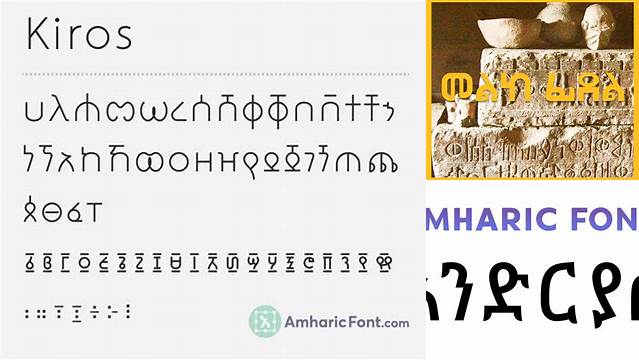
Hey guys! Ever wanted to jazz up your Amharic documents, websites, or designs with a cool new font? Well, you're in the right place. Today, we're diving deep into the world of Kiros Amharic font and how you can get your hands on it for free. We'll cover everything you need to know, from where to download it to how to install and use it like a pro. So, buckle up, and let's get this font party started!
Understanding Amharic Typography and Font Choices
Amharic, the beautiful and ancient language of Ethiopia, has a rich history of written expression. Typography plays a crucial role in how this language is perceived and used in modern media. When we talk about Amharic typography, we're essentially discussing the art and technique of arranging type to make the written language legible, readable, and appealing when displayed. This involves selecting the right Amharic fonts that not only capture the essence of the script but also cater to the specific needs of the project, whether itâs for print, web, or digital design. The choice of font can significantly impact the overall aesthetic and user experience. For instance, a formal document might require a classic, serif-style font, while a creative project might benefit from a more modern or stylized typeface. The availability of free Amharic fonts like Kiros is a game-changer for many users, especially students, small businesses, and individuals who may not have the budget for premium typefaces. These free resources democratize access to quality typography, enabling a wider range of people to create visually appealing content in Amharic. Itâs not just about looking good; itâs about ensuring clarity and accessibility. A poorly chosen font can hinder readability, especially for longer texts, and can even misrepresent the tone or message youâre trying to convey. Therefore, understanding the nuances of Amharic script and how different fonts interpret it is key. Weâll explore various aspects of Amharic typography, including the historical evolution of the script, the technical considerations for font design, and the impact of digital media on typeface trends. This foundational knowledge will help you appreciate why a font like Kiros can be such a valuable asset in your digital toolkit.
Why Choose Kiros Amharic Font?
So, what makes the Kiros Amharic font stand out from the crowd? Well, guys, itâs all about its unique blend of modern aesthetics and classic Amharic script representation. This font is designed to be incredibly versatile, making it suitable for a wide range of applications. Whether youâre designing a professional business card, a captivating website banner, a school project, or even just typing out a personal email, Kiros has got your back. Its clean lines and well-balanced characters ensure excellent readability, even at smaller sizes, which is super important for web design and print materials. Plus, it often comes with a good set of glyphs, meaning it supports a comprehensive range of Amharic characters and symbols, ensuring you can express yourself fully. The Kiros font often boasts a contemporary feel without sacrificing the traditional charm of the Amharic language. This balance is hard to achieve, and when a font nails it, it becomes an instant favorite. Think about how a beautifully designed Amharic word can draw someone in â thatâs the power of a great font! Many users appreciate Kiros for its smooth curves and consistent stroke weight, contributing to a visually pleasing experience. Itâs also often optimized for digital screens, meaning it will look crisp and clear on your computer, tablet, or smartphone. The availability of this Amharic font for free download makes it even more attractive. You get premium-quality design elements without the hefty price tag, allowing you to invest your resources elsewhere. Weâll delve into the specific design characteristics that make Kiros a top choice for many, exploring its legibility, stylistic features, and overall impact on Amharic content creation. This font isn't just a tool; it's a way to elevate your communication and express the richness of the Amharic language with style and clarity.
Utilizing Kiros Font in Design Software
Now that youâve successfully installed the Kiros Amharic font, the real fun begins: using it in your creative projects! Design software is where this font truly shines. Whether youâre a seasoned pro or just starting out with graphic design, incorporating Amharic fonts like Kiros can add a unique flair to your work. Letâs talk about popular software like Adobe Photoshop, Illustrator, and even more accessible tools like Canva or Microsoft Word. Once the Kiros font is installed on your system, it should automatically appear in the font dropdown menus of most applications. To use it, simply select the text you want to format, navigate to the font list, and find âKirosâ (or how itâs listed in your system). Click on it, and voilĂ ! Your Amharic text will transform. For graphic designers, understanding font pairing is crucial. You might want to pair Kiros with a complementary English font or another Amharic typeface to create visual hierarchy and interest. Consider the context: for a formal invitation, a classic pairing might work best, while a vibrant poster could use Kiros in a bolder way. Weâll explore tips on how to effectively use Kiros in different design contexts, including typography best practices for Amharic. This includes advice on tracking (letter spacing), kerning (space between specific letter pairs), and leading (line spacing) to ensure optimal readability and aesthetic appeal. Experimenting with font weights and styles, if available for Kiros, can also add depth. This section is all about empowering you to leverage the Kiros Amharic font to its full potential, transforming your designs from ordinary to extraordinary. Get ready to make your Amharic content pop!
Best Practices for Using Amharic Fonts Online
When youâre using Amharic fonts, especially free Amharic fonts like Kiros, in online environments like websites or social media, a few best practices can make a huge difference. The primary goal is always readability and user experience. Because Amharic script has its own unique structure, ensuring it displays correctly across different browsers and devices is key. One crucial aspect is font rendering. Some fonts might look great on one browser but appear fuzzy or distorted on another. Itâs important to test your chosen Amharic font, including Kiros, across various platforms and browsers to ensure consistency. Web fonts often require specific formats (like WOFF or WOFF2) for optimal web performance and compatibility. If you plan to use Kiros on a website, youâll need to check if the downloaded version is web-optimized or if you need to convert it. Embedding the font correctly using CSS @font-face